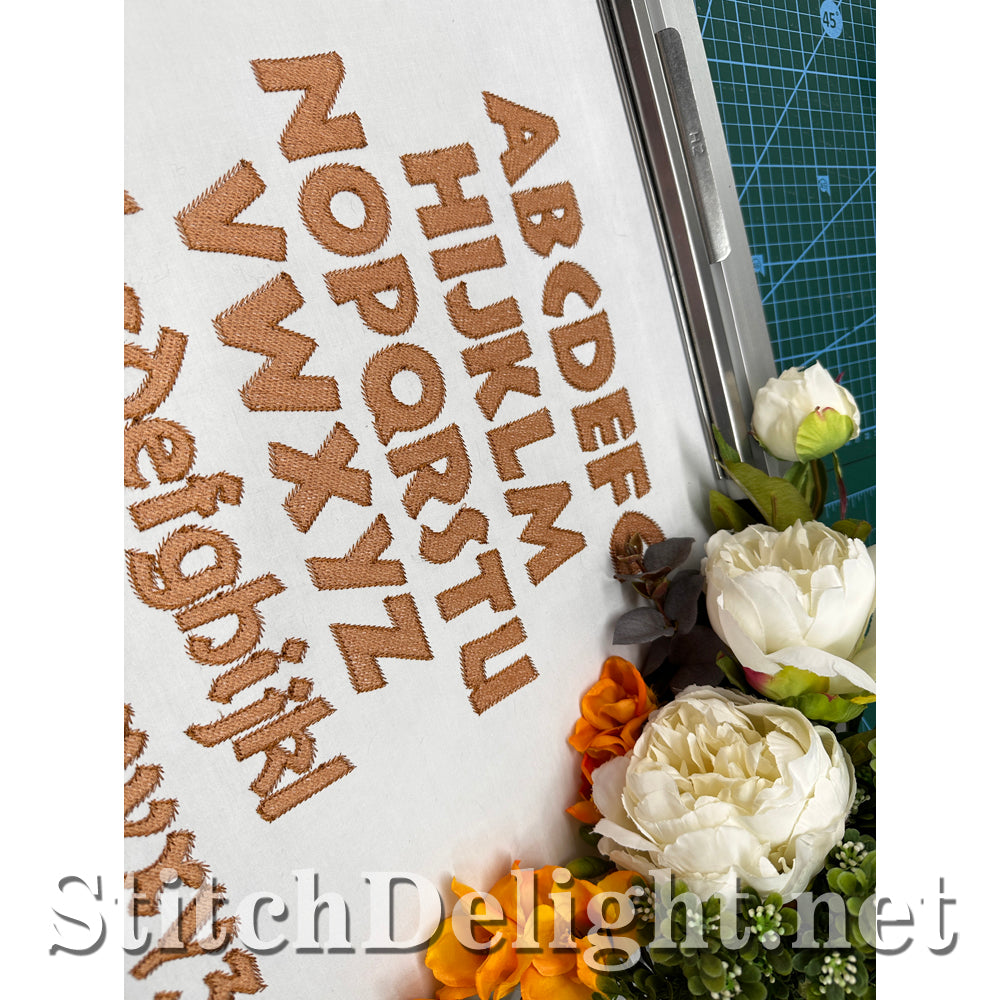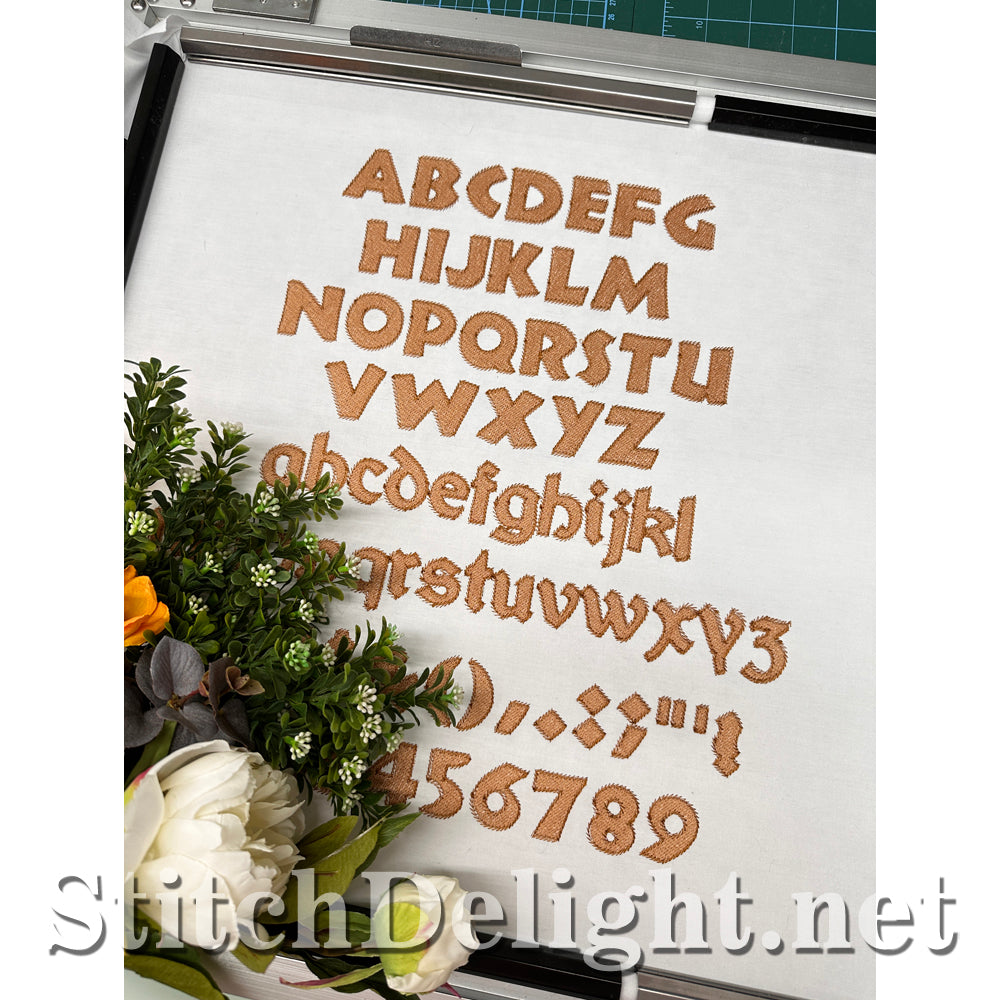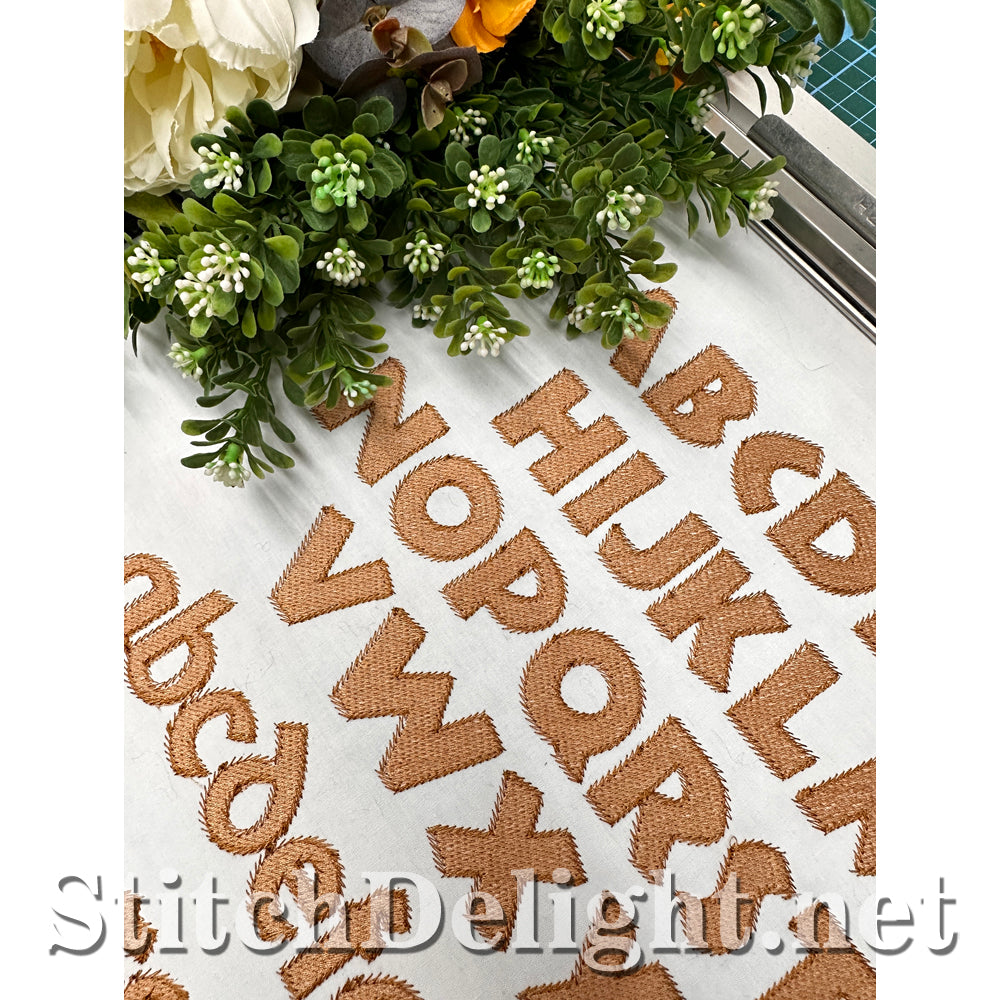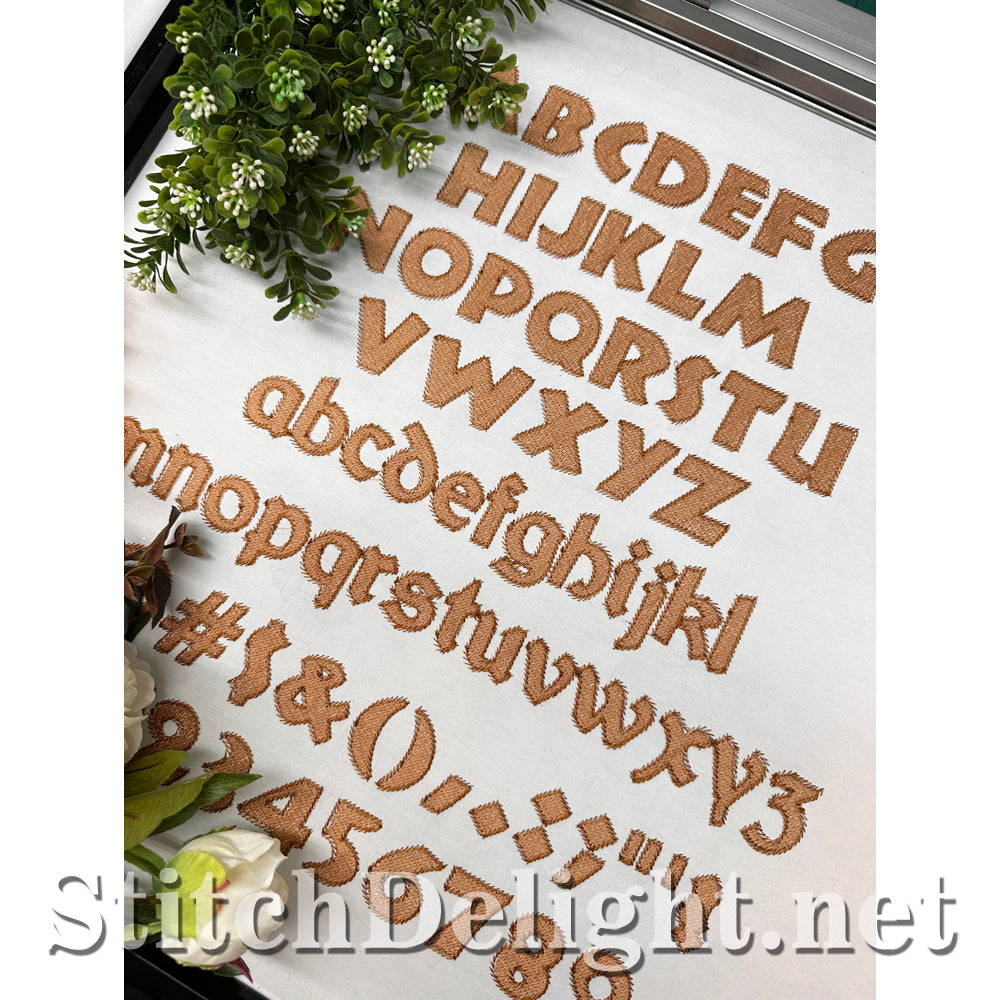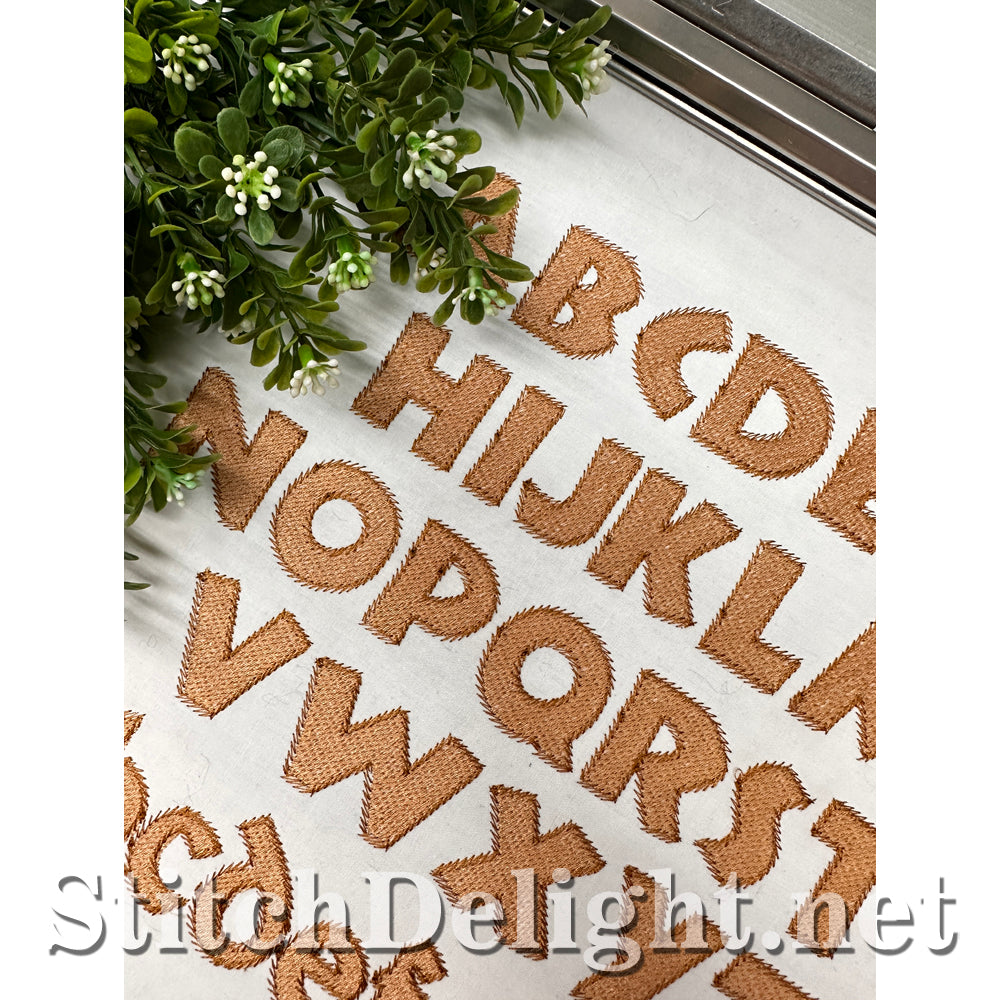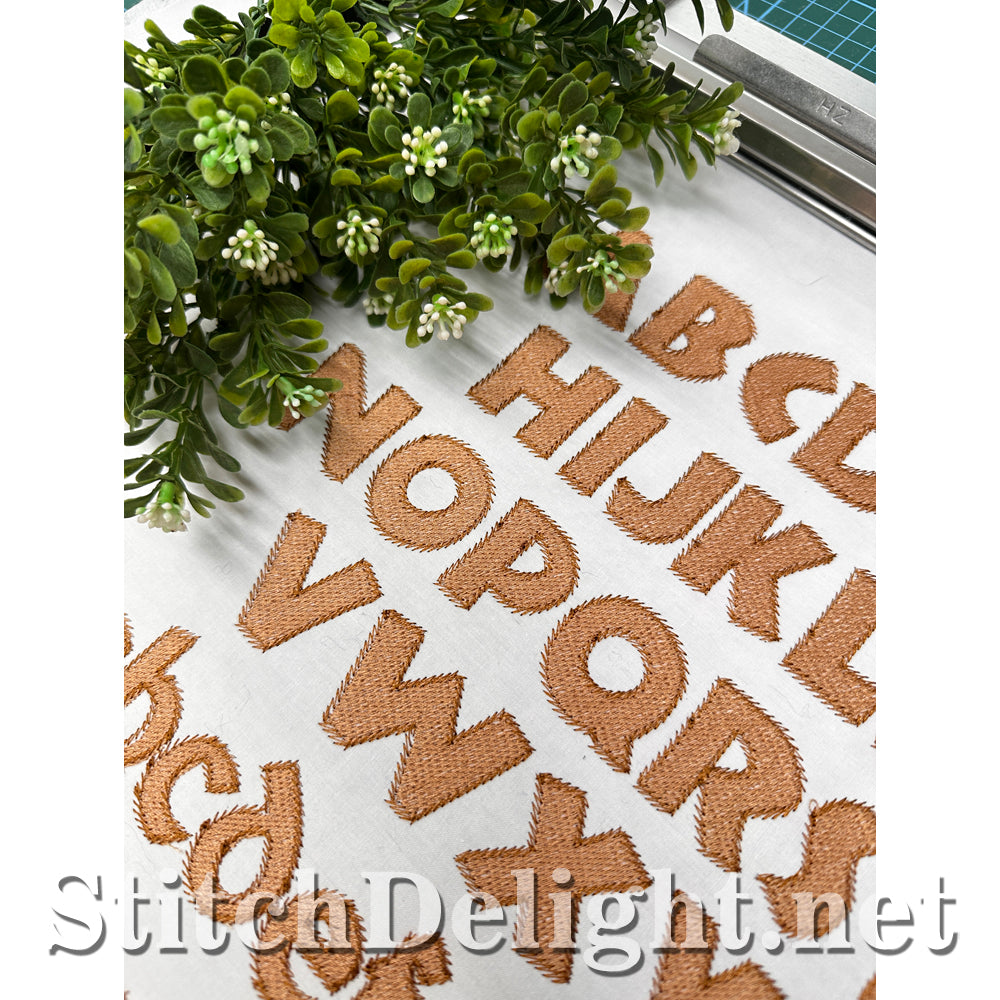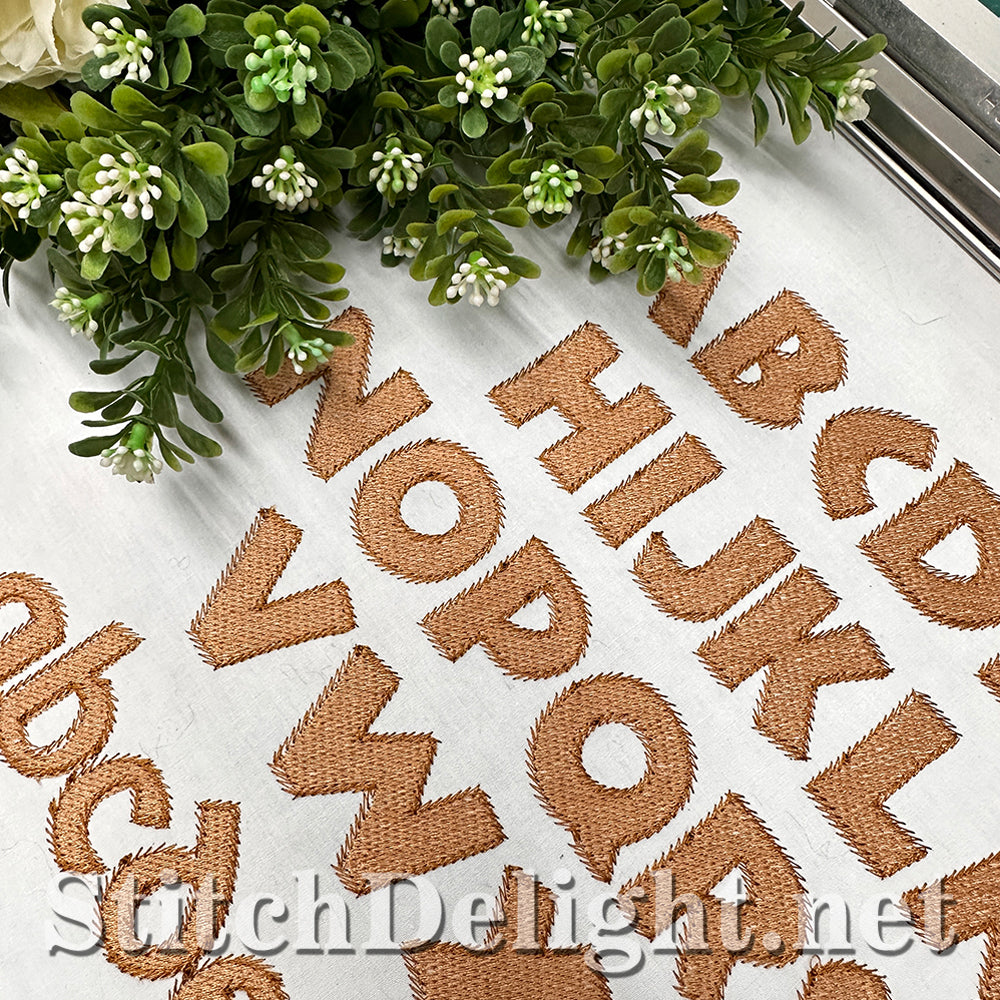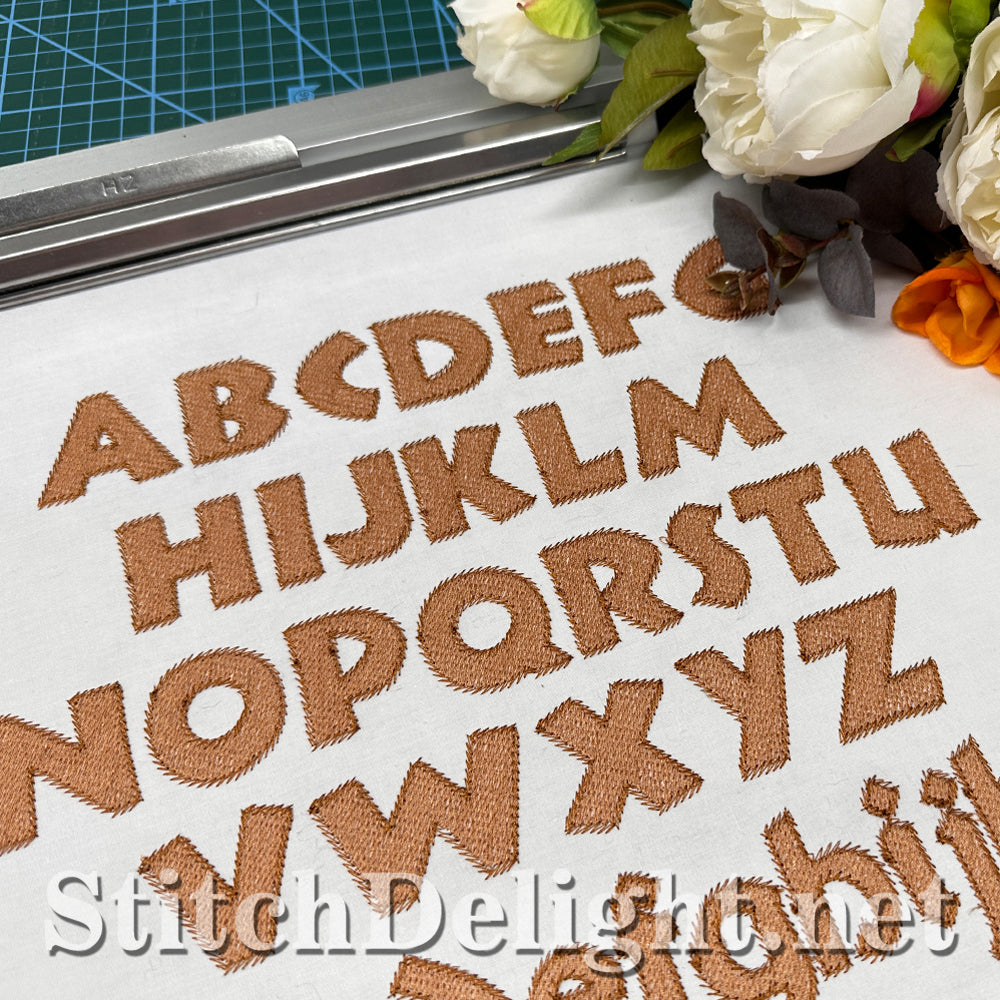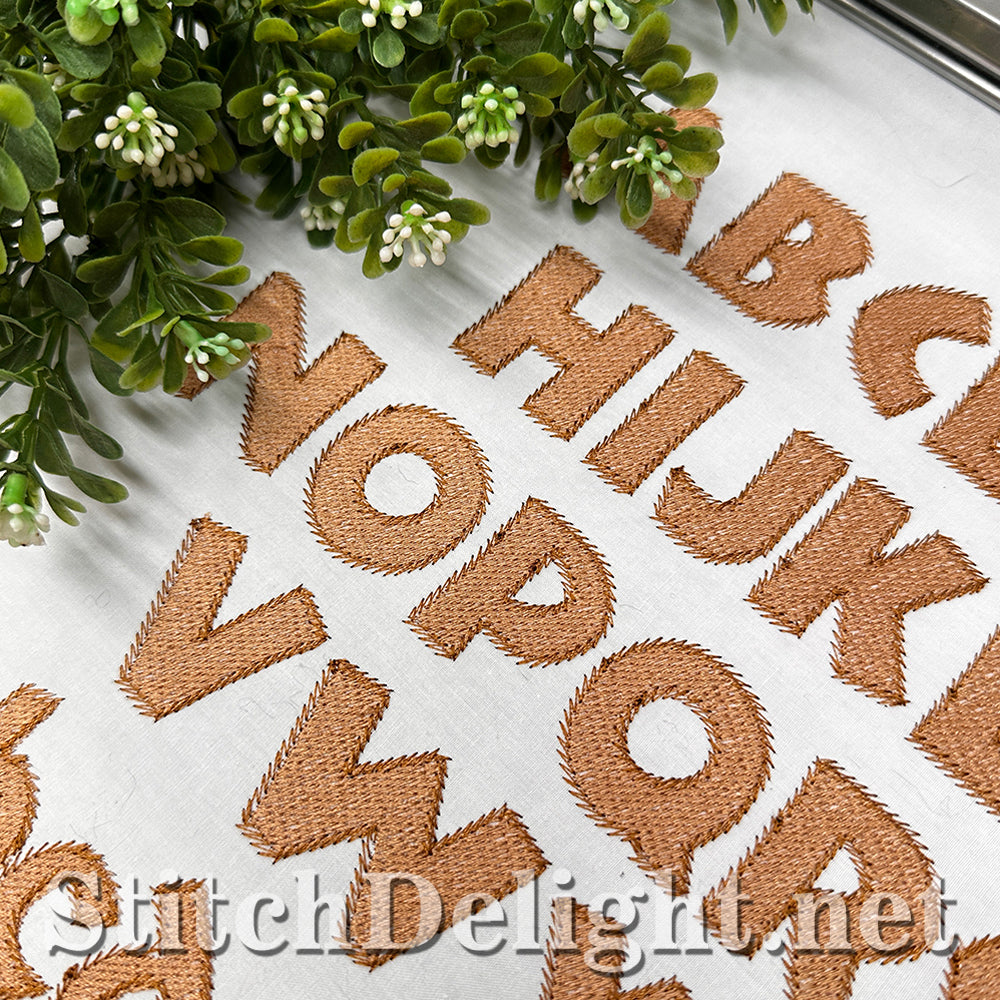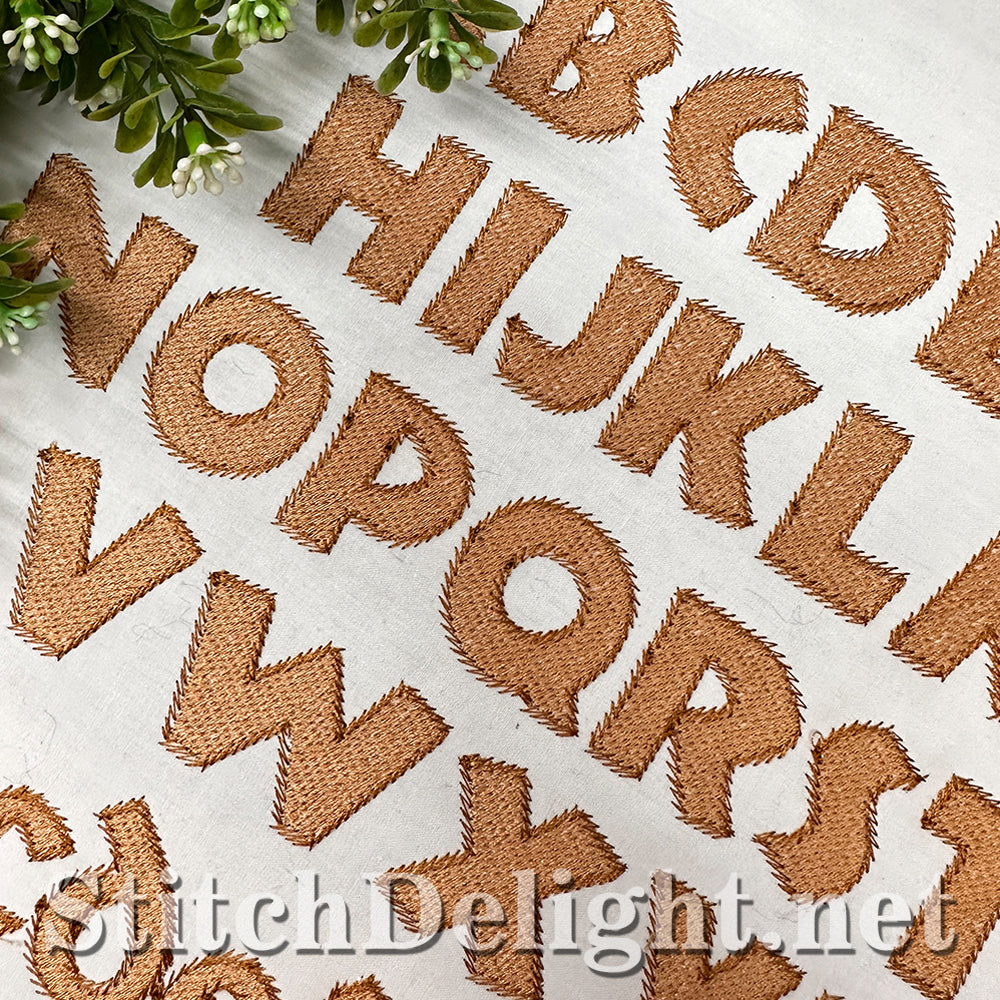
SDS4230 Jurassic Matching Font
This font is the perfect match to our adorable Jurassic Dino Font SDS4213 - This font has a letter height of 1.34" and features the capital, small, numbers and punctuation.